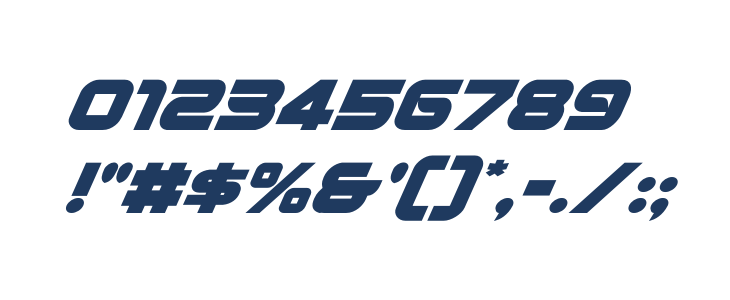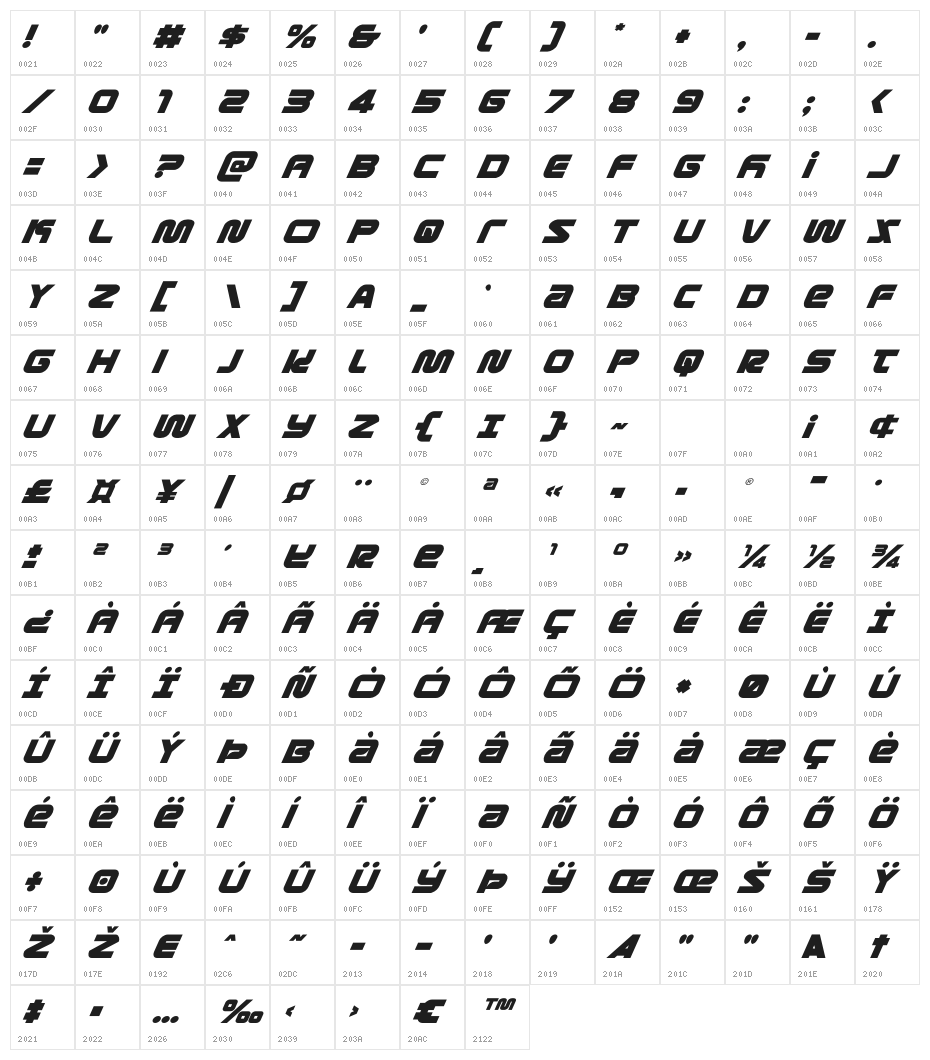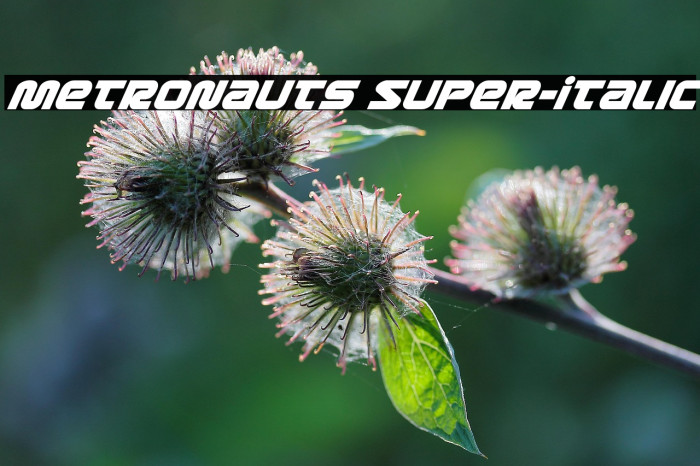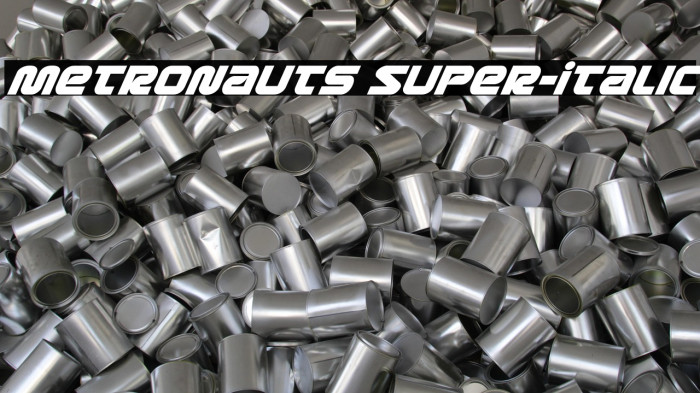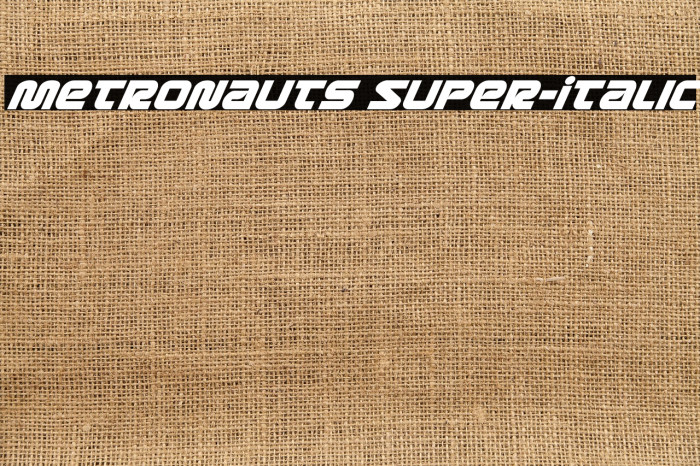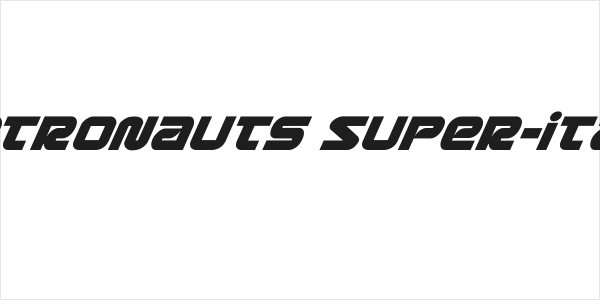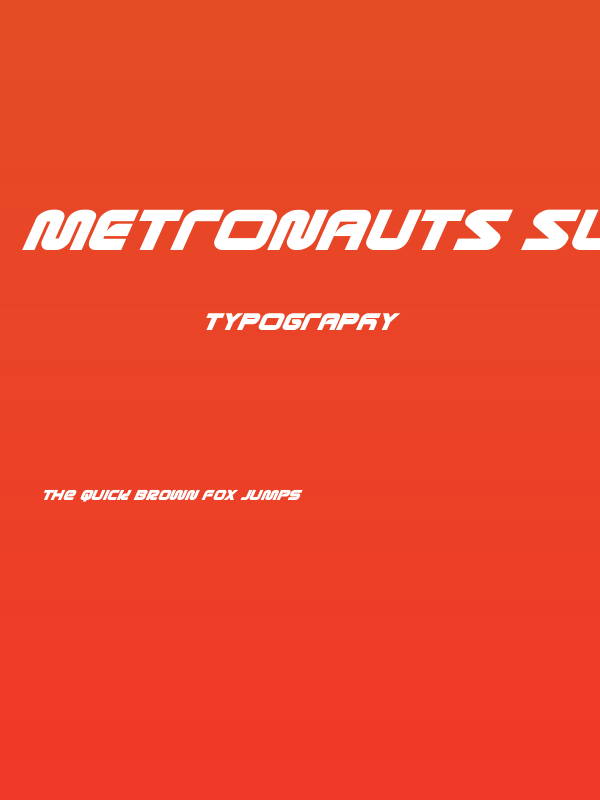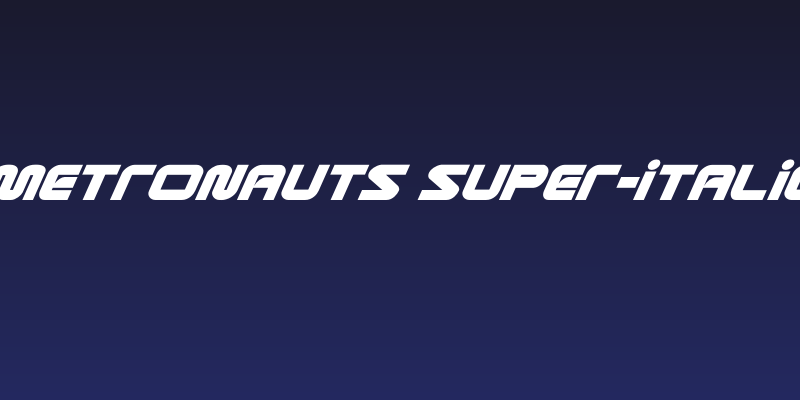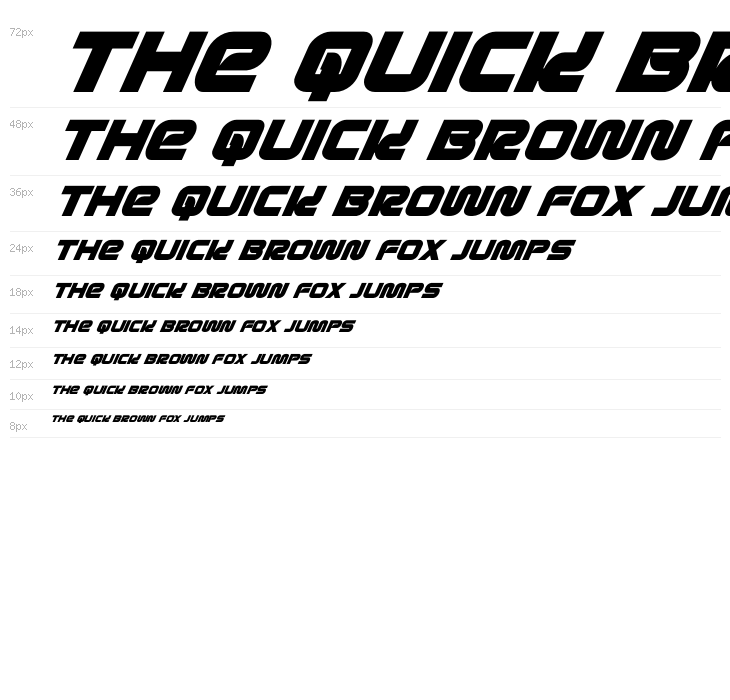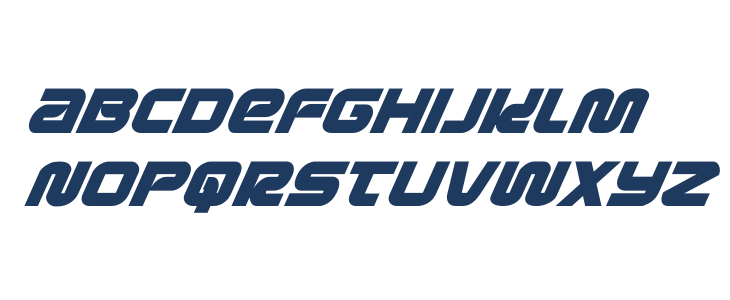
Metronauts Super-Italic Font
Metronauts Super-Italic Description
This font features a bold, italicized style with a futuristic and dynamic appearance. The characters are designed with a forward-leaning slant, giving them a sense of motion and speed. The strokes are thick and consistent, providing a strong visual impact. The letterforms are slightly condensed, enhancing the compact and energetic feel. The font includes both uppercase and lowercase letters, numerals, and a variety of special characters, making it versatile for different design needs. Its modern aesthetic is ideal for projects that require a bold and eye-catching typeface.
Proposed ProjectsIdeal for sports branding, technology logos, video game titles, and sci-fi themed designs.